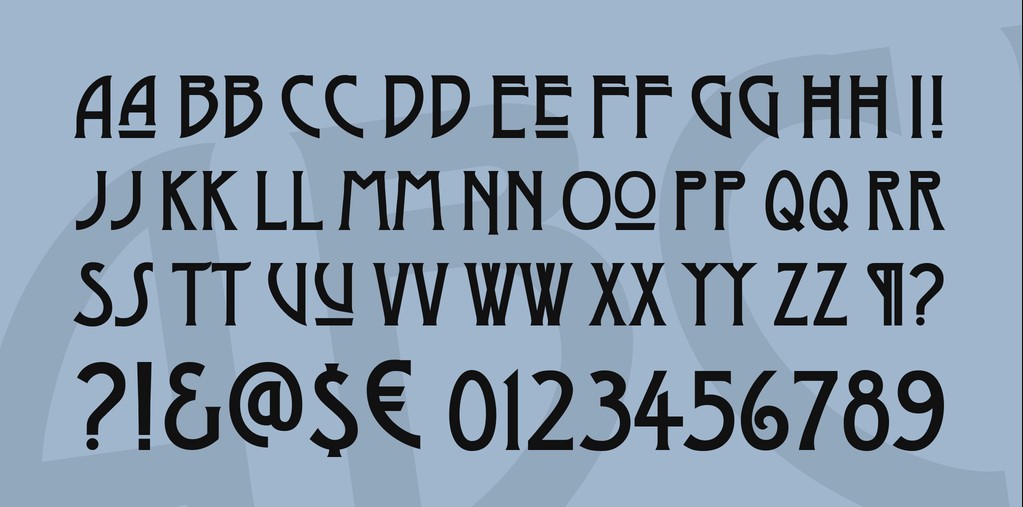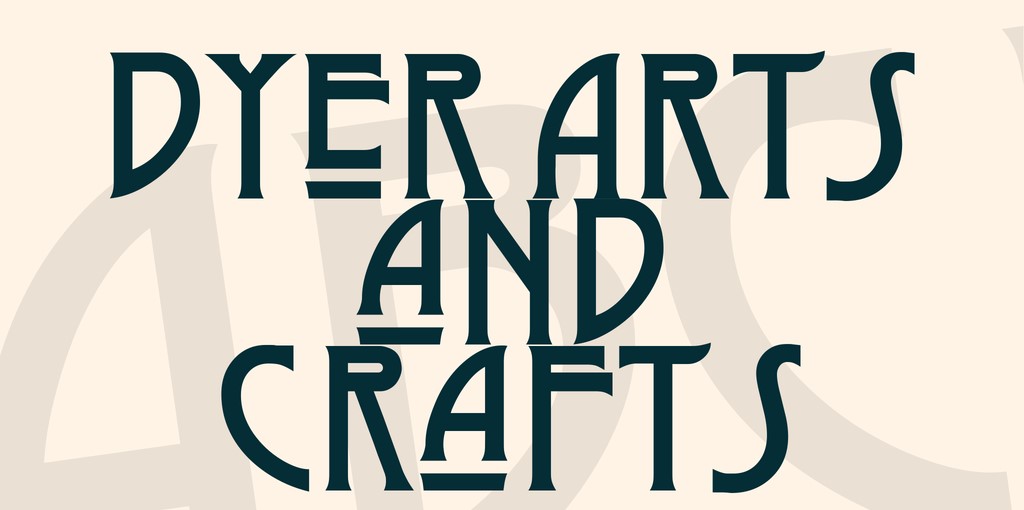
Dyer Arts and Crafts Font are widely famous for its Typography. This typeface is similar to the squirrel and art nouveau font. Its type is reminiscent of gothic wood kinds however more geometric. This makes for charmingly considered virtually one in each form of person that align perfectly, irrespective of the truth that used at awesome sizes.
But, that may be a clean looking and actually sturdy font if you need to offer you the consequences you need. It is been included as font choice and is one of the unusual fonts for the popular layout. Dyer Arts and Crafts Font Free Which makes it very last for designing trademarks for startups, net pages, and present-day producers. The font is offered in 2 variations: not unusual and outline.
A sans-serif font that is much like american handmade typeface from tool-kind foundry basically primarily based absolutely totally on the concept of its letterforms characteristic circles which might be almost but no longer as a likely very last. Download Moreover, components have 100 glyphs and one hundred exchange characters. The font includes all characters in every uppercase and lowercase letters. It’s far a gift-day princess sofia font with a futuristic layout.
This font is right for crafting social media posts, t-shirts, net web page online headers, and further.